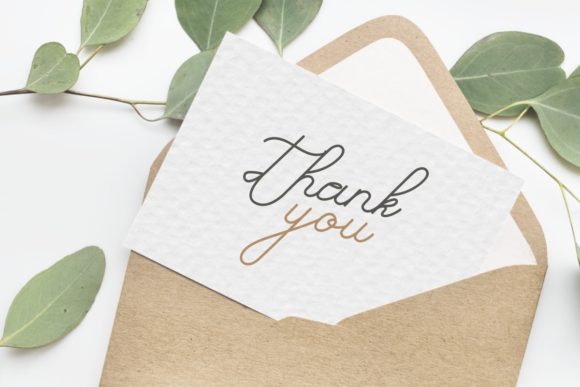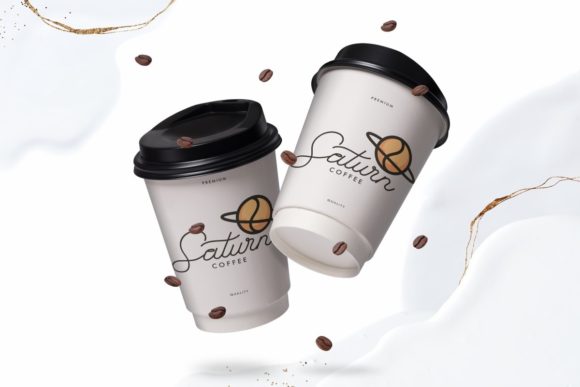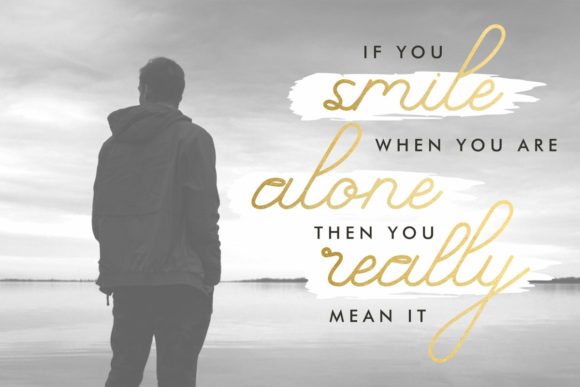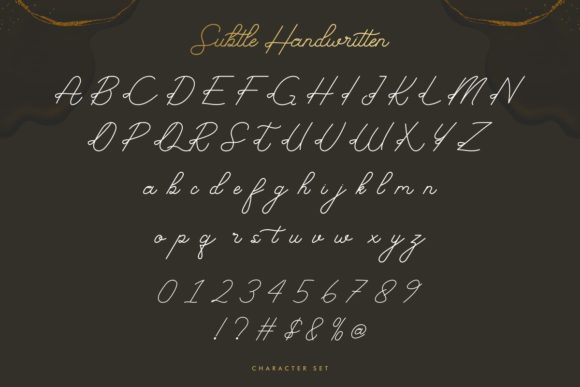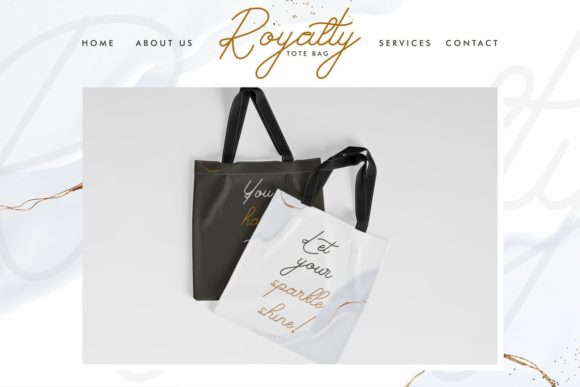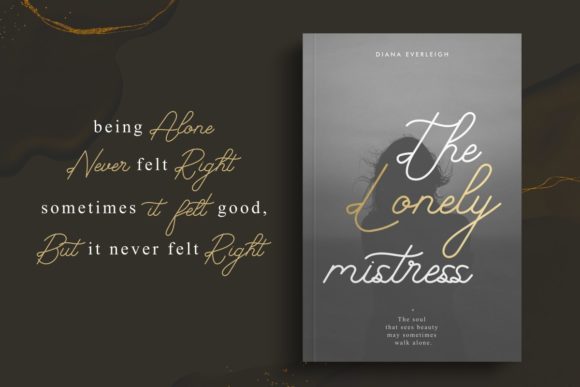
About Subtle Font
Subtle is a chic, refined script font that emanates sophistication and elegance. Its stylish alternates and ligatures make this font the perfect match for any project. This font is PUA encoded which means you can access all of the glyphs and swashes with ease!